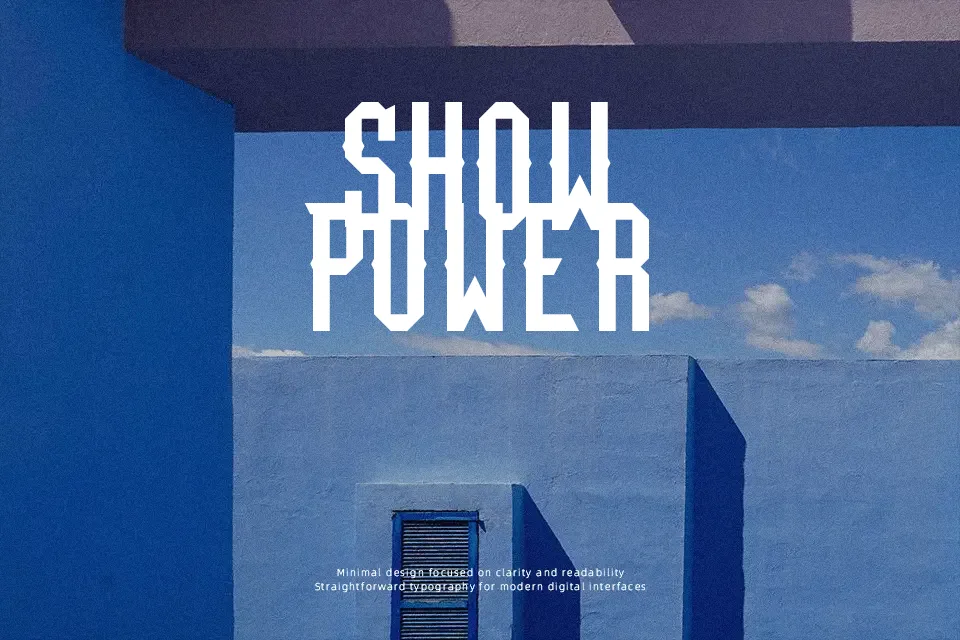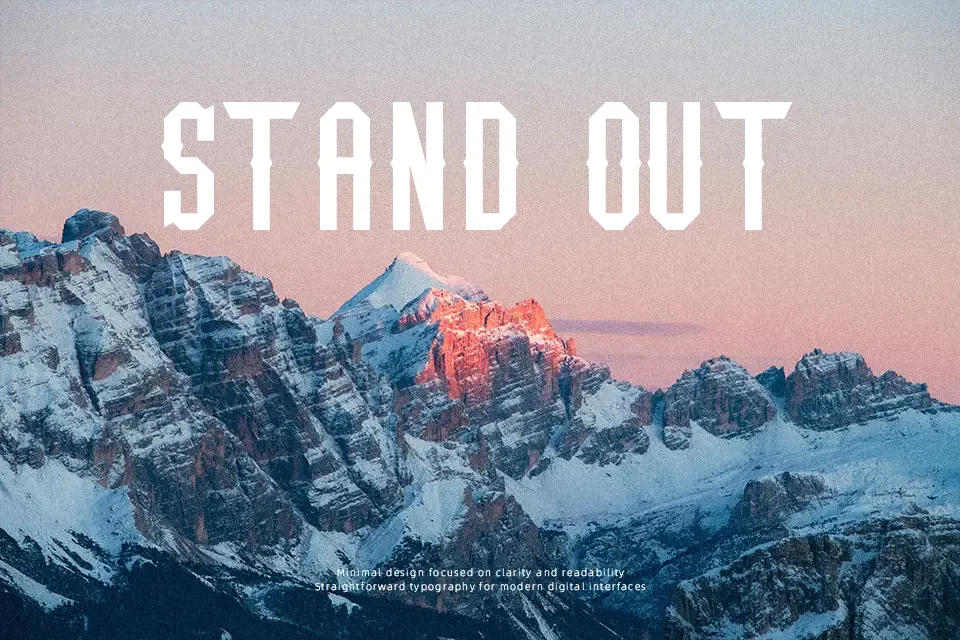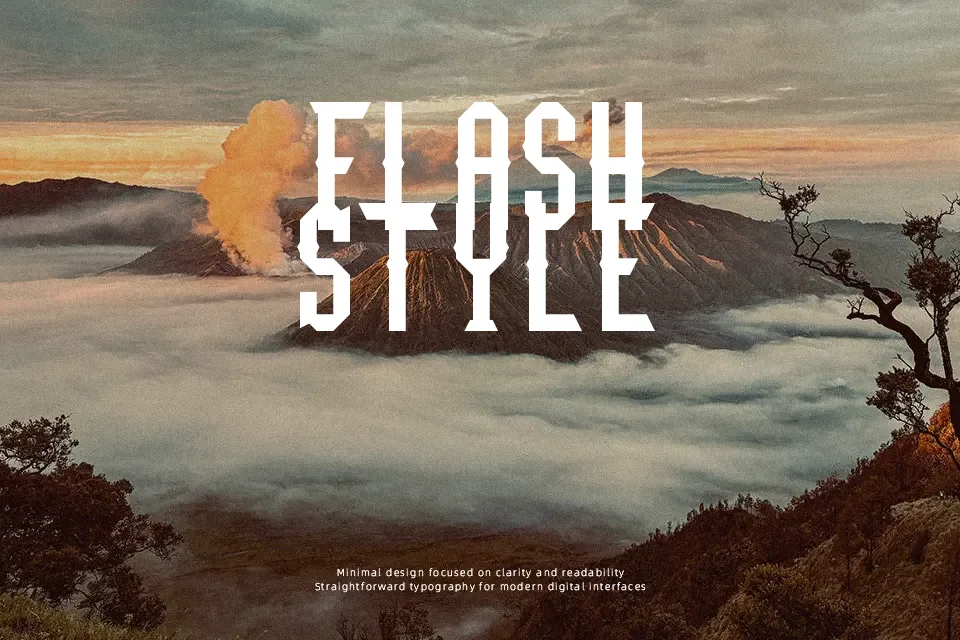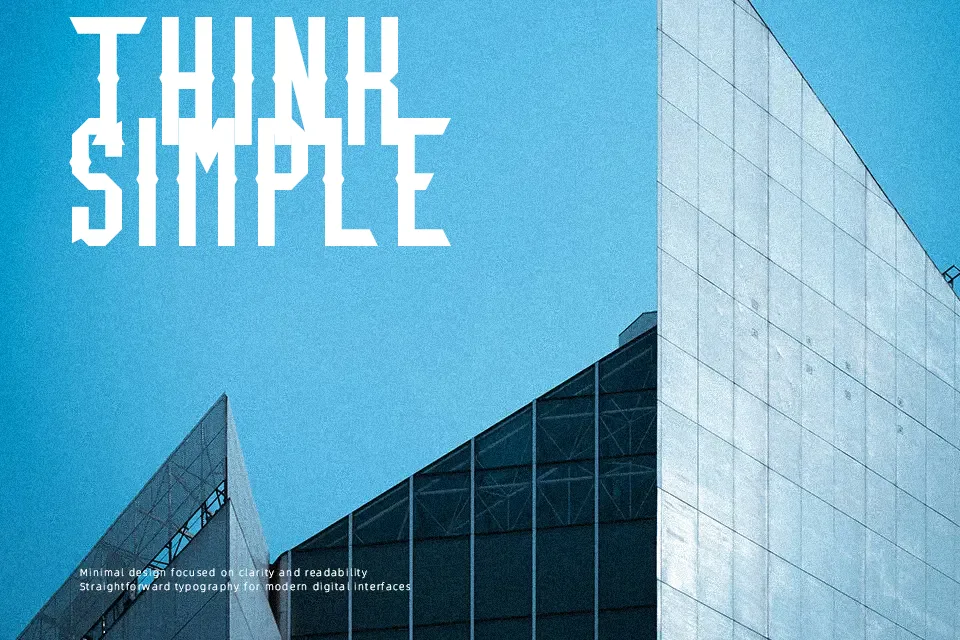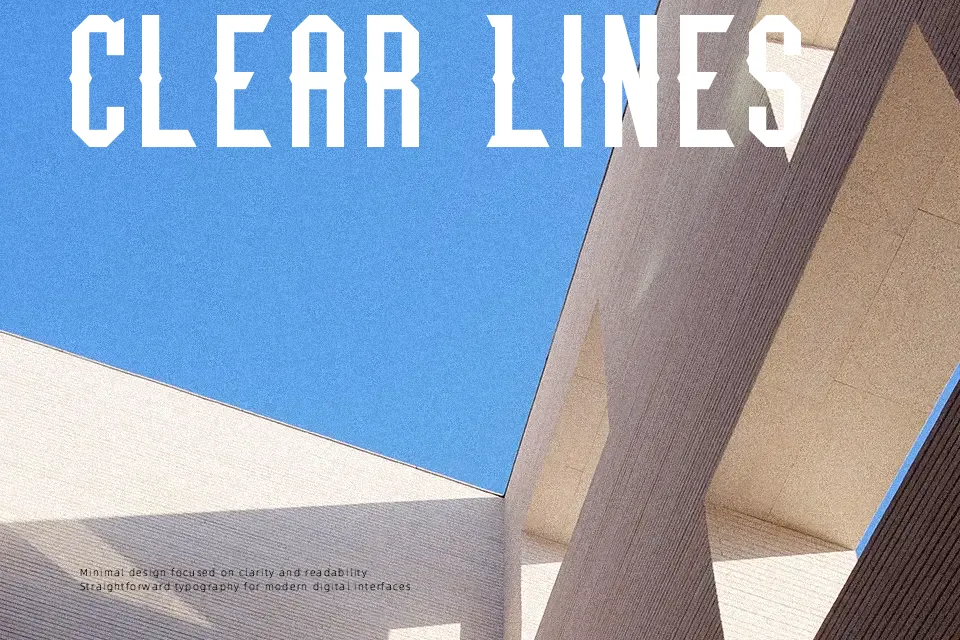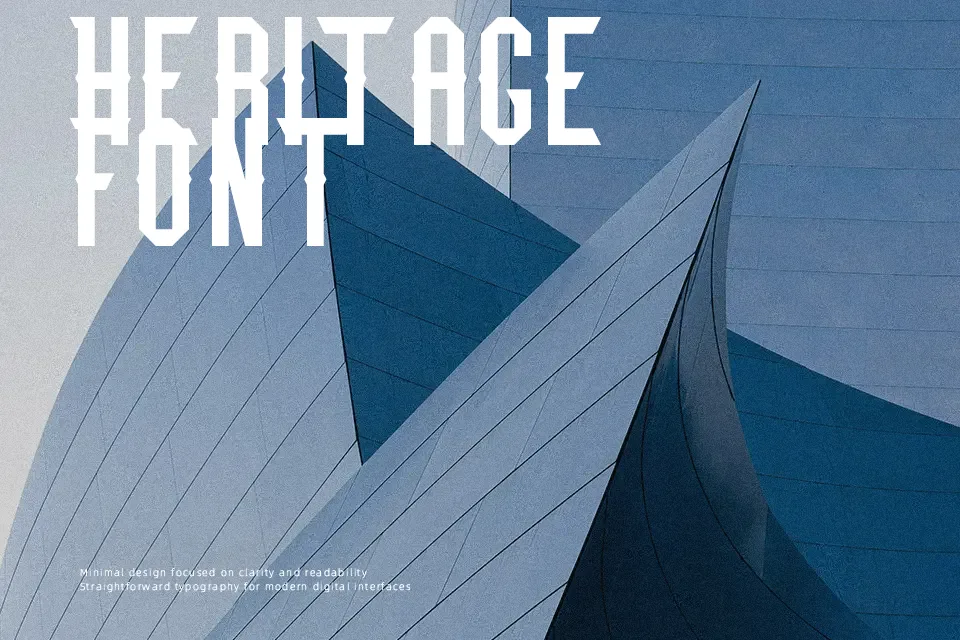
Team Fury Font
Designed by Out of Step Font Company
Team Fury Font features an all-caps slab serif construction characterized by heavy stroke weights, angular serifs, and pronounced decorative spurs along the waistline of each glyph. Characters exhibit uniform block-like widths with balanced, compact tracking that emphasizes strong horizontal presence and sturdy rhythm across all letterforms. Numerals maintain clean baseline alignment and match the uppercase heights precisely. While the design delivers remarkable legibility and commanding presence in headline applications, the dense geometry and spiked spurs significantly compromise clarity in dense body text and reduced sizes.
varsity team jersey numbering, athletic event posters, esports championship branding, screen-printed merchandise graphics
continuous paragraph reading, mobile interface labels, dense editorial layouts, small legal notices
Perfect for branding, headline, and packaging, with a bold and decorative style.